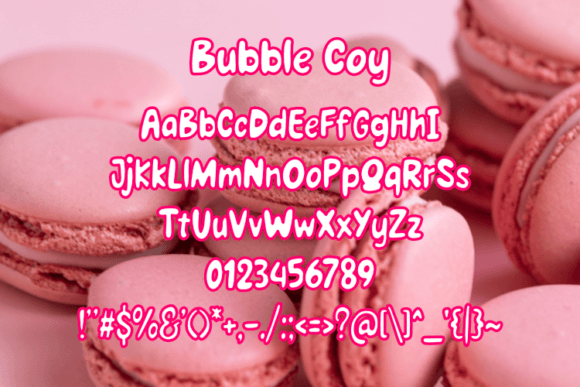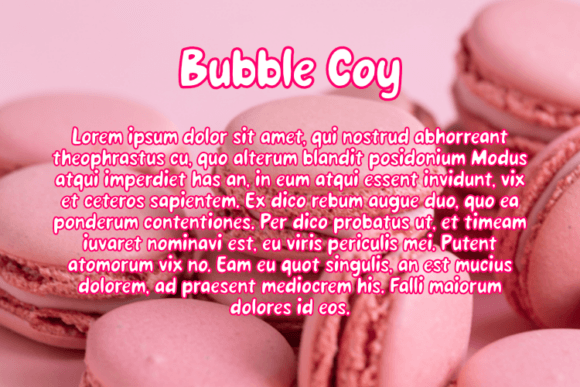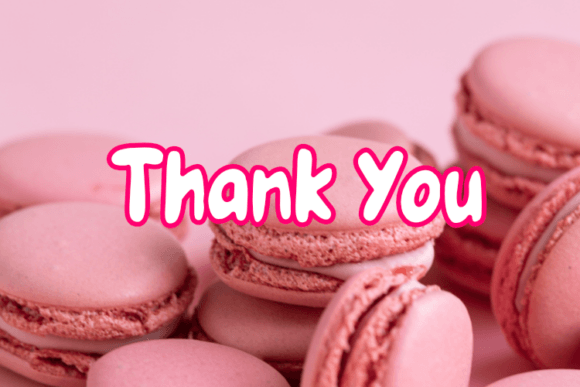
Unlocking Creativity with Bubble Coy Font: A Game-Changer for Designers and Crafters
Welcome to the explosively creative world of Bubble Coy, a versatile font that is revolutionizing the way designers and crafters bring their ideas to life. This innovative font is not just a style statement; it’s a tool that seamlessly integrates into various design projects, from apparels to merchandise, and everything in between. With Bubble Coy, you can accentuate your work with a fresh, modern appearance that captivates audiences and sets your designs apart.
The Versatility of Bubble Coy
One of the standout features of Bubble Coy is its incredible versatility. Whether you’re working on a fashion project, creating custom merchandise, or experimenting with digital content, this font adapts effortlessly to any design software you use. This compatibility is crucial for designers and crafters who work with different tools and platforms, ensuring a smooth creative process without any technical hiccups.
Breathing Life into Your Designs
The Bubble Coy font is more than just a collection of characters; it’s a creative partner that helps bring your designs to life. Its unique, bubbly aesthetic adds a playful yet sophisticated touch to any project, making it perfect for a wide range of applications. From catchy apparel designs to compelling merchandise, Bubble Coy helps ensure your work stands out in a crowded marketplace. Its innovative appearance is not just visually appealing; it also communicates a sense of fun and creativity, making it an excellent choice for brands and designers looking to connect with their audience on a more personal level.
Seamless Integration with Design Software
Telling a Fascinating Story through Design
Every design tells a story, and with Bubble Coy, you have the power to make that story fascinating. This font does more than just add text to your designs; it adds personality, flair, and a touch of innovation. By harnessing the power of Bubble Coy, you can create designs that are not just visually stunning but also engaging and memorable. Whether you’re looking to build a brand identity, create custom products, or simply express your creativity, Bubble Coy is the perfect companion on your design journey.
In conclusion, Bubble Coy is not just a font – it’s a creative catalyst that can transform your designs and elevate your brand. Its versatility, compatibility, and innovative appearance make it an indispensable tool for designers and crafters looking to make a mark in the world of design. With Bubble Coy, you’re not just designing; you’re creating experiences, telling stories, and connecting with your audience in meaningful ways. So, immerse yourself in the explosively creative world of Bubble Coy and let your designs tell a fascinating story.
Key Features of Bubble Coy:
- Versatile and compatible with various design projects
- Unique, bubbly aesthetic that adds a playful yet sophisticated touch
- Ideal for apparels, merchandise, digital content, and more